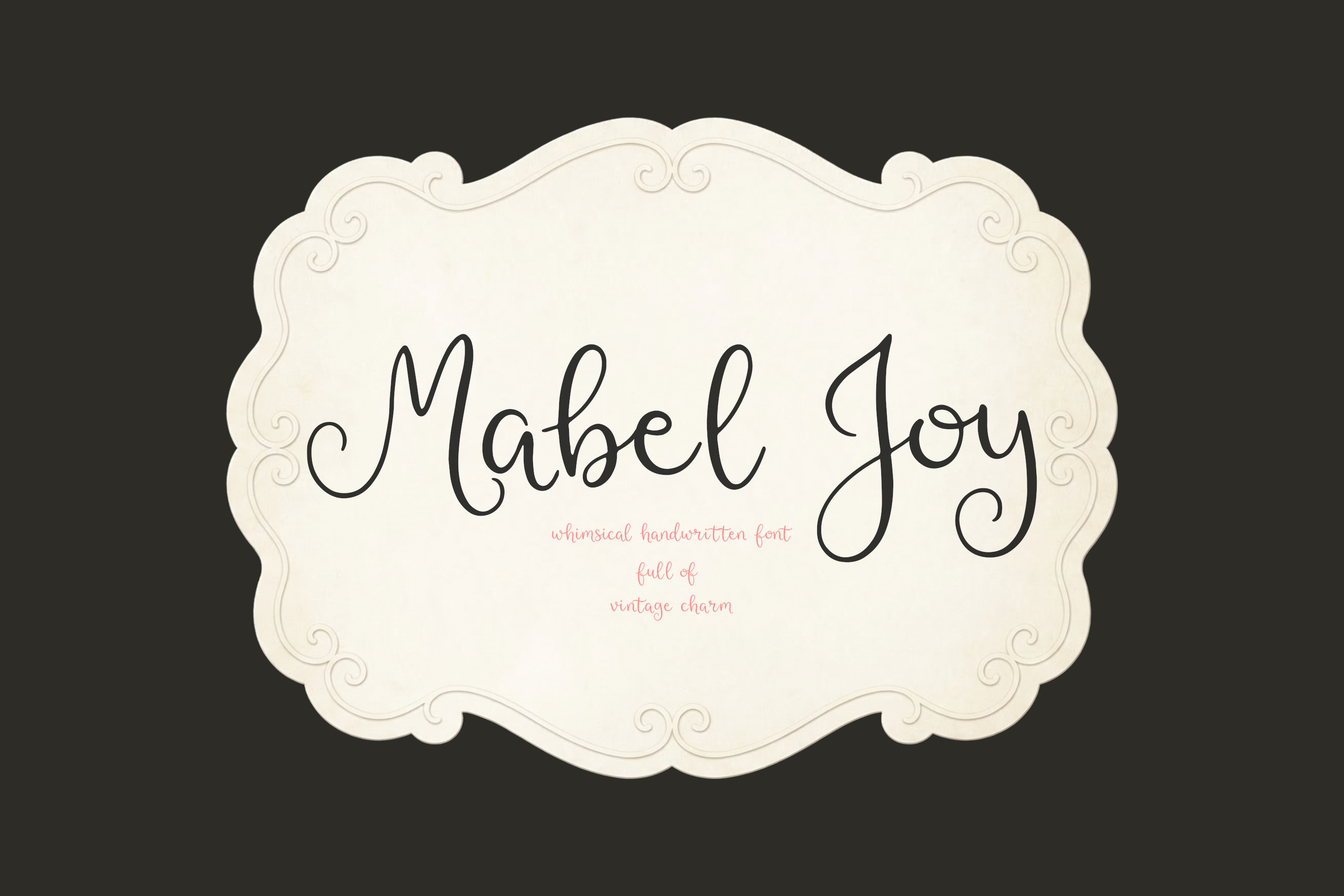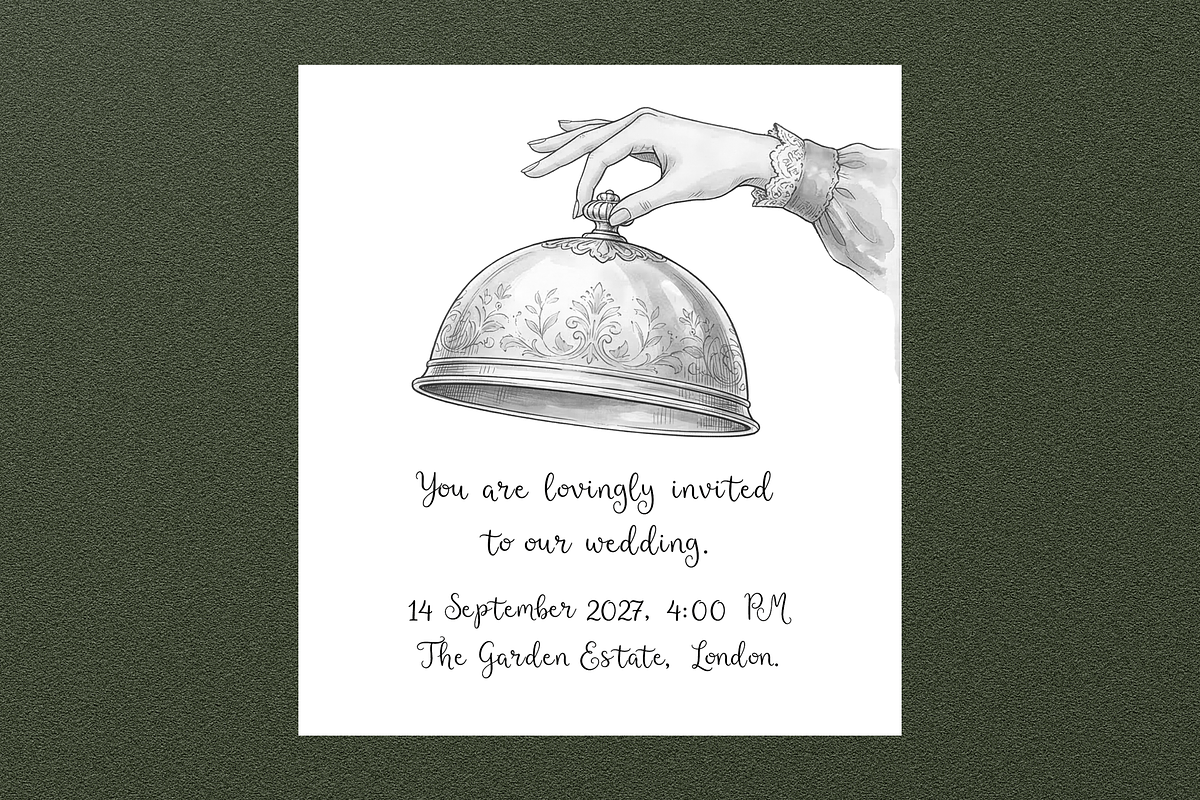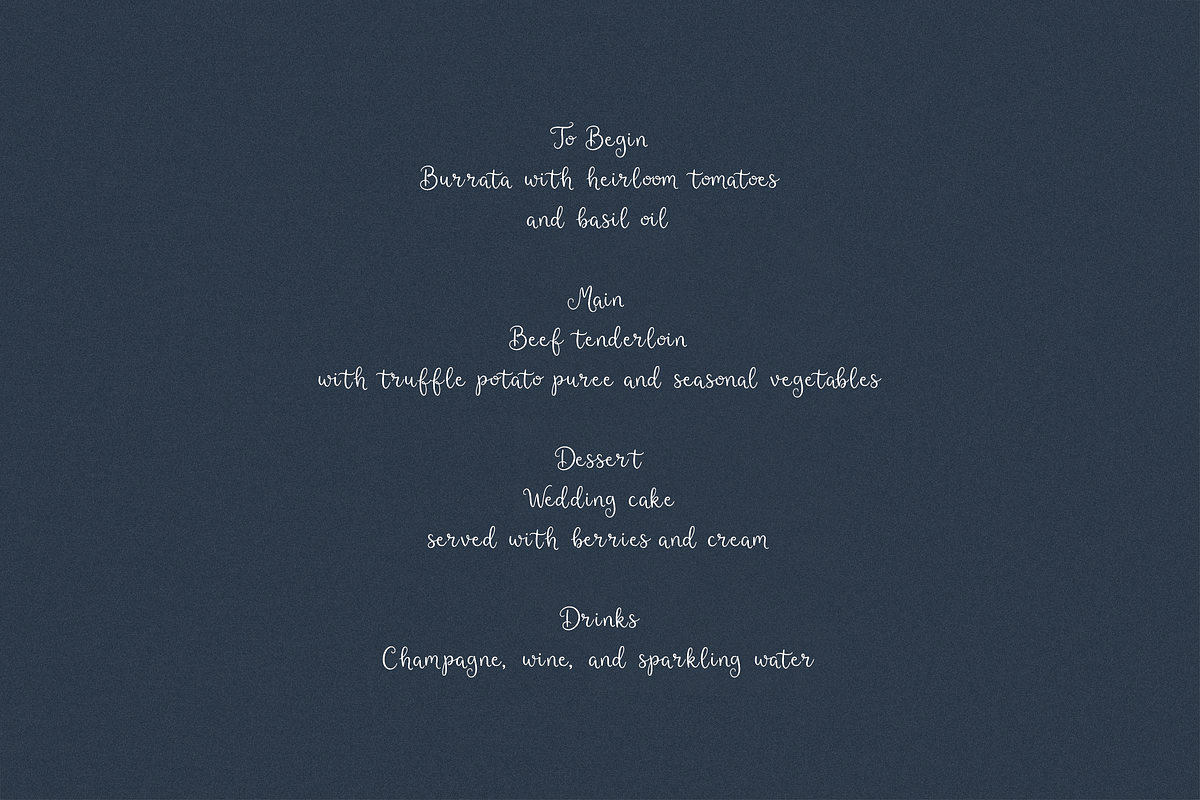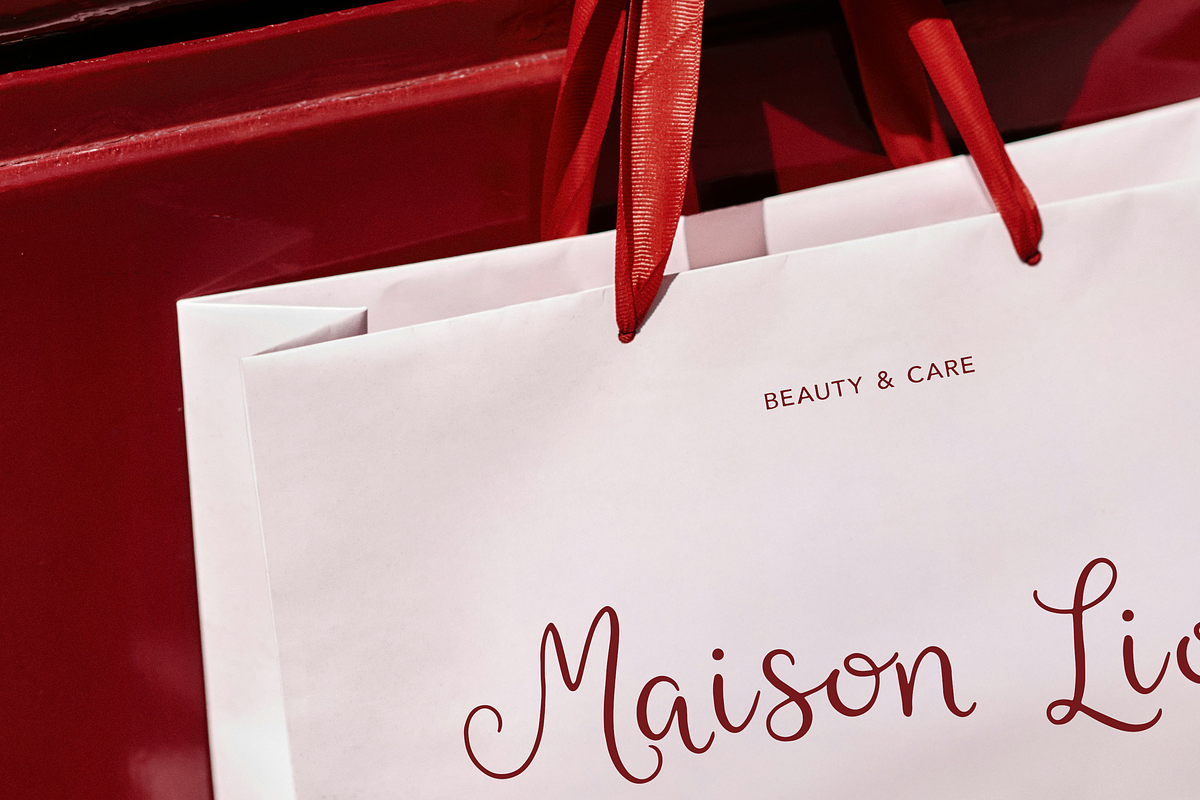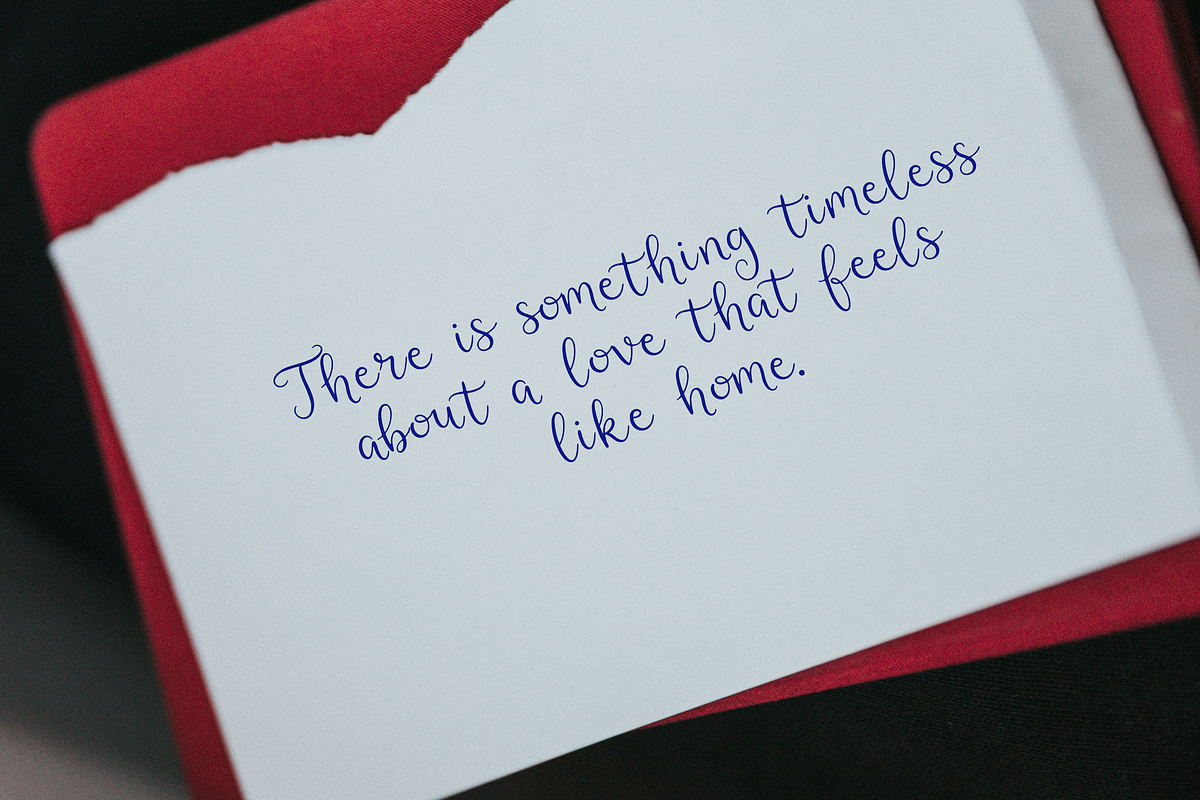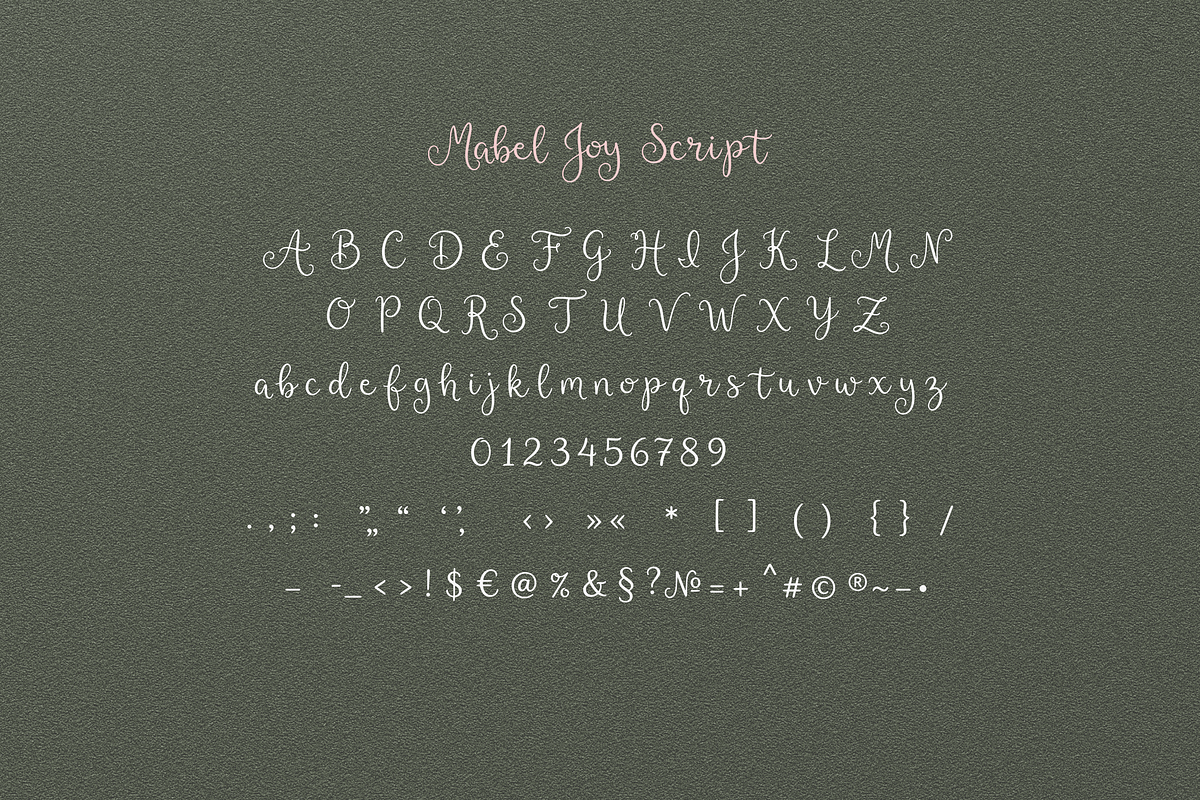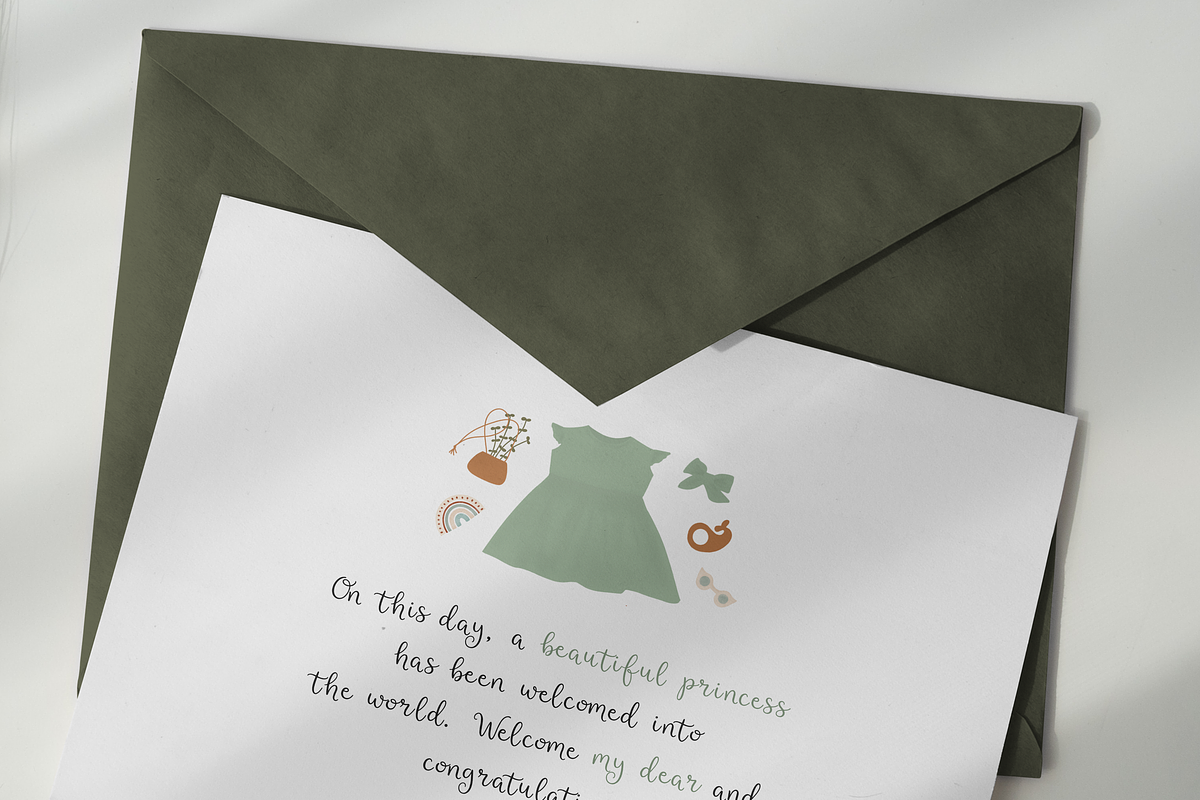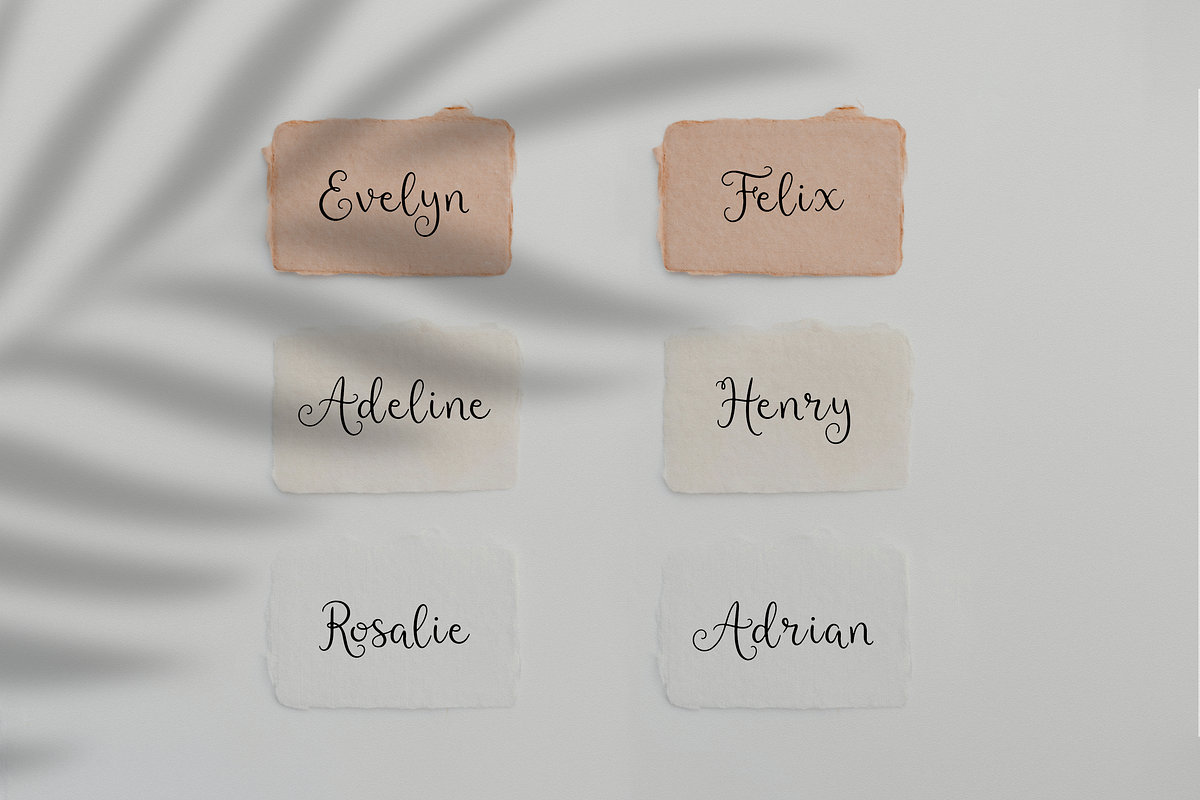
Mabel Joy Handwritten Font
Mabel Joy is a whimsical handwritten font full of vintage charm, playful energy, and soft personality. Designed with flowing curves, rounded shapes, and a cheerful handmade rhythm, it brings warmth and character to creative projects while staying clean and easy to read.
This font is perfect for branding, logos, packaging, invitations, greeting cards, labels, posters, quotes, and social media graphics. It has a lighthearted retro spirit that feels feminine, expressive, and memorable, making it a beautiful choice for boutique branding, wedding details, beauty packaging, bakery designs, and lifestyle content.
Mabel Joy works especially well in designs that need a personal, friendly, and slightly nostalgic touch. Whether you are creating a charming small business identity or playful printed goods, this font helps your work feel distinctive, warm, and full of joy.